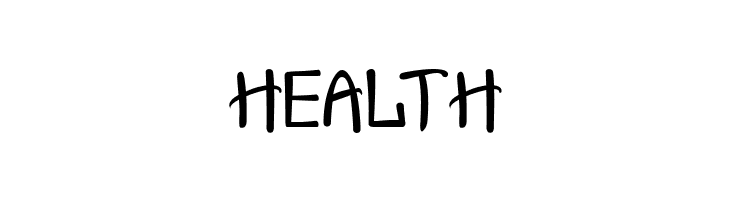
A bold, vintage-style font with a strong, condensed appearance.
A playful, bold font with a shadow effect and hand-drawn style.
A bold, playful handwritten font with rounded, irregular characters.
A bold, italic font with dynamic curves and a striking presence.
A bold, angular font with a dynamic and edgy style.
A bold, distressed font with a vintage, textured style.